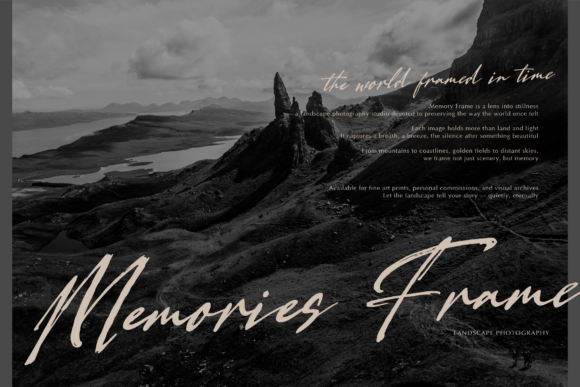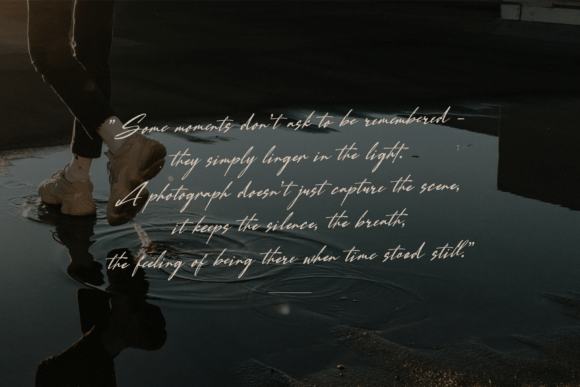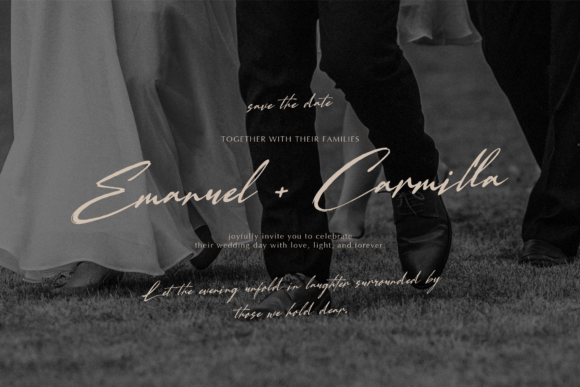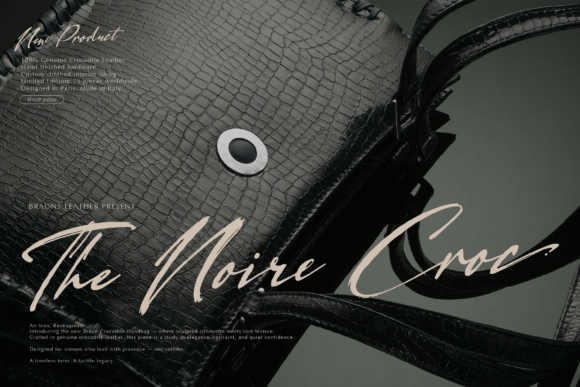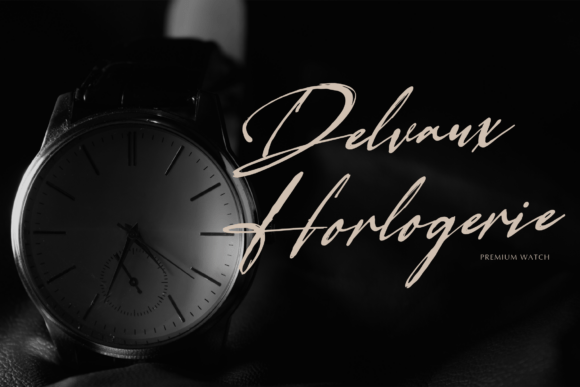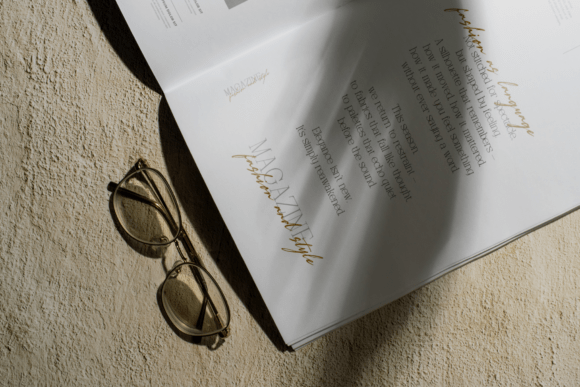
Introducing Alletind: The Natural Signature Font for Creative Projects
Are you tired of using generic fonts that lack personality? Look no further than Alletind, a beautiful handwritten typeface designed by Gracetypestudio. This stunning font is perfect for adding a personal touch to your creative projects, from logos and branding to homeware design, product packaging, and more.
What is Alletind?
Alletind is a natural signature font that exudes elegance and charm. Its soft, organic character makes it perfect for a wide range of applications, including logos, branding, homeware design, product packaging, mugs, quotes, posters, shopping bags, apparel, book covers, business cards, invitations, greeting cards, labels, photography watermarks, and special event materials.
Key Features of Alletind
- Handwritten typeface: Alletind is a carefully crafted handwritten font that mimics the look and feel of a personal signature.
- Soft and organic character: The font’s soft and organic character gives it a unique and authentic feel that’s perfect for creative projects.
- Complete set of standard glyphs: Alletind includes a complete set of standard glyphs, ensuring that you have access to all the characters you need.
- Alternates and ligatures: The font also features alternates and ligatures, giving you added versatility and creative freedom.
Alletind is a dream come true for designers and crafters who want to add a personal touch to their projects. Whether you’re creating:
- Logos and branding: Use Alletind to create a unique and memorable brand identity.
- Homeware design: Add a touch of elegance to your homeware designs, from mugs to wall art.
- Product packaging: Stand out from the crowd with beautiful, handcrafted packaging.
- Apparel and accessories: Create stunning apparel and accessories, from t-shirts to tote bags.
Why Choose Alletind?
So why choose Alletind over other fonts? Here are just a few reasons:
- Unique and authentic: Alletind’s handwritten typeface gives your projects a unique and authentic feel.
- Elegant and charming: The font’s soft and organic character makes it perfect for projects that require a touch of elegance.
- Versatile: Alletind is suitable for a wide range of creative projects, from logos and branding to homeware design and product packaging.
Alletind is a stunning natural signature font that’s perfect for designers and crafters who want to add a personal touch to their projects. With its soft and organic character, complete set of standard glyphs, and alternates and ligatures, Alletind is the perfect choice for a wide range of creative applications. So why wait? Download Alletind today and start creating beautiful, handcrafted projects that stand out from the crowd.